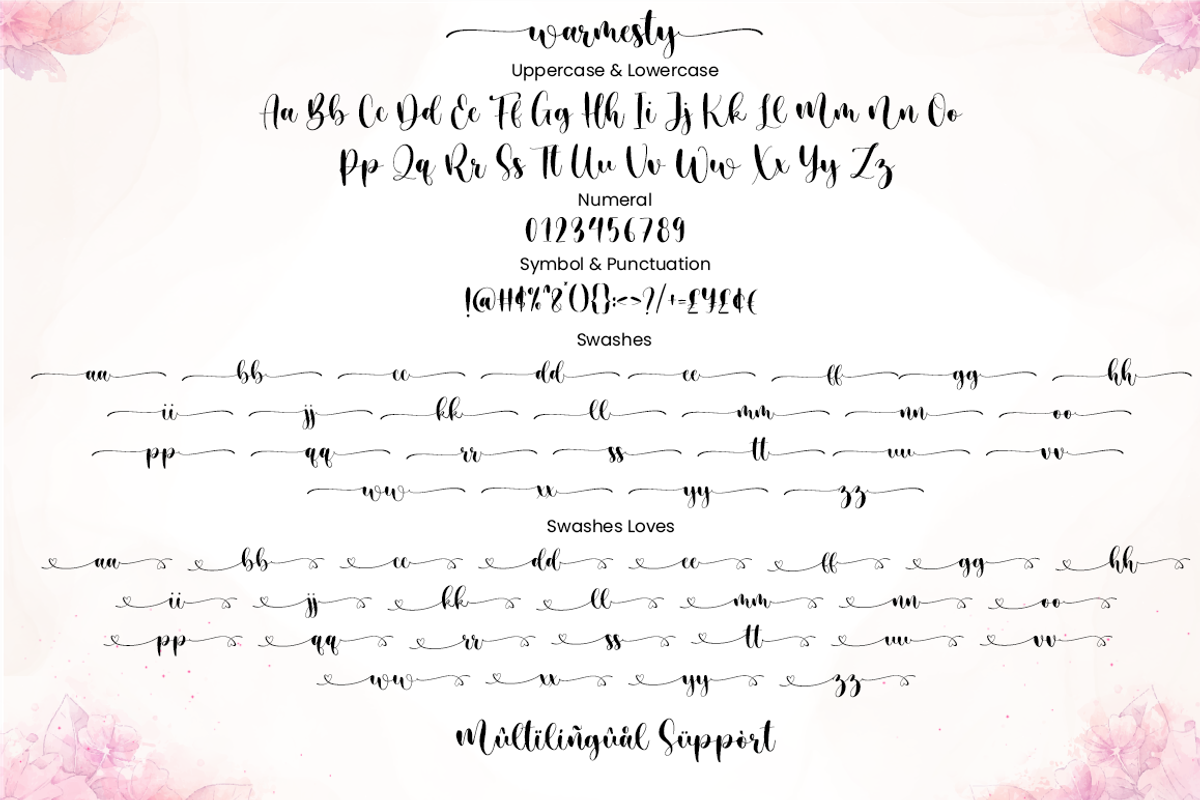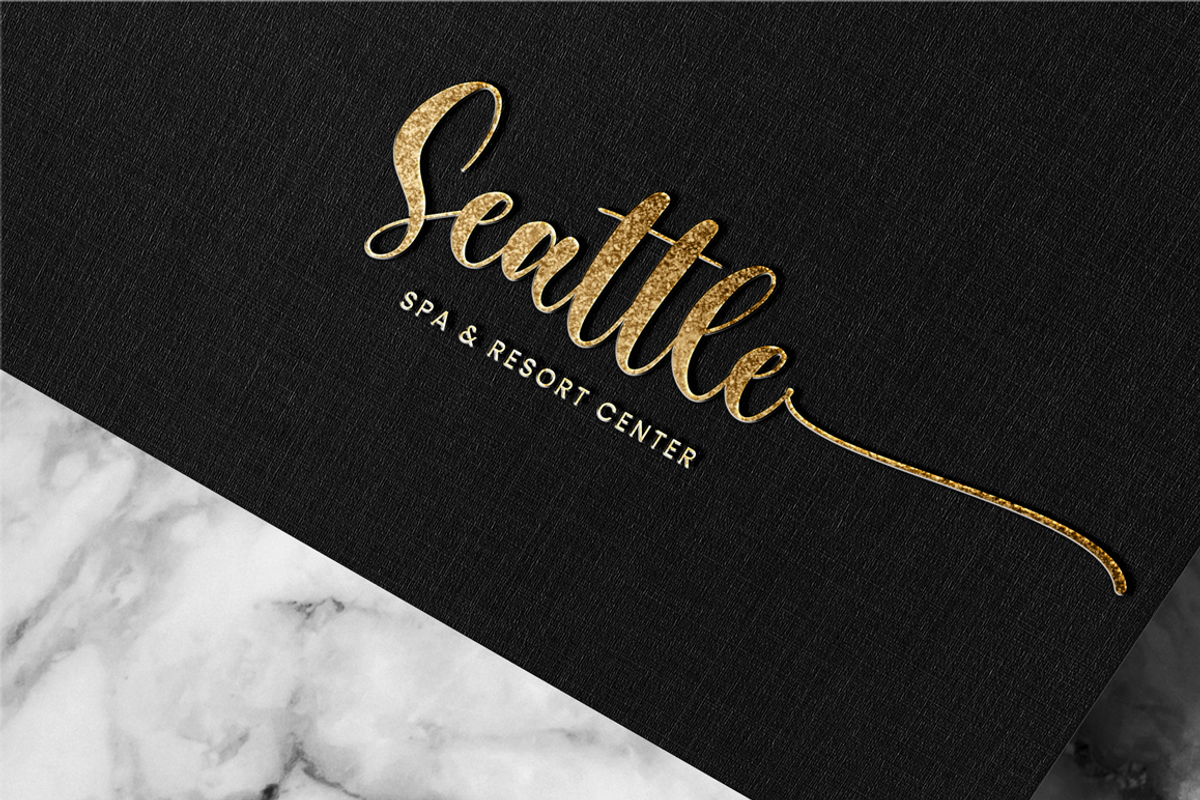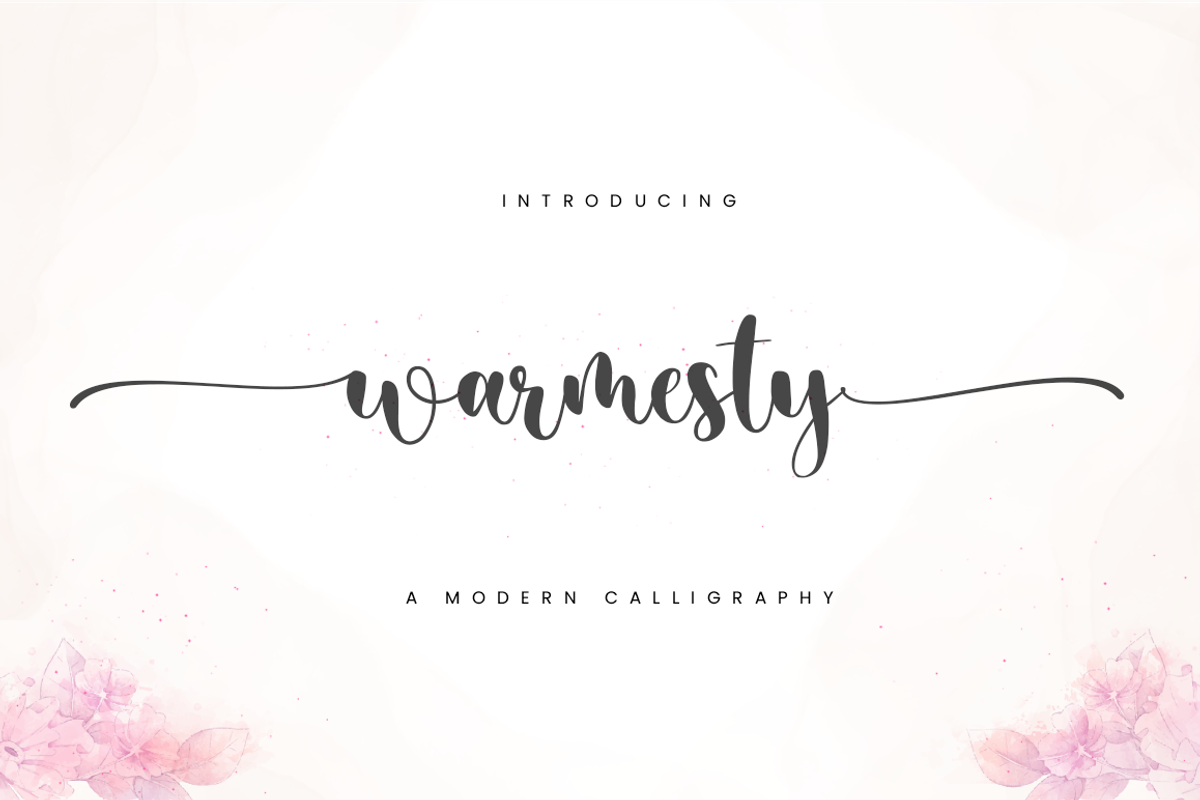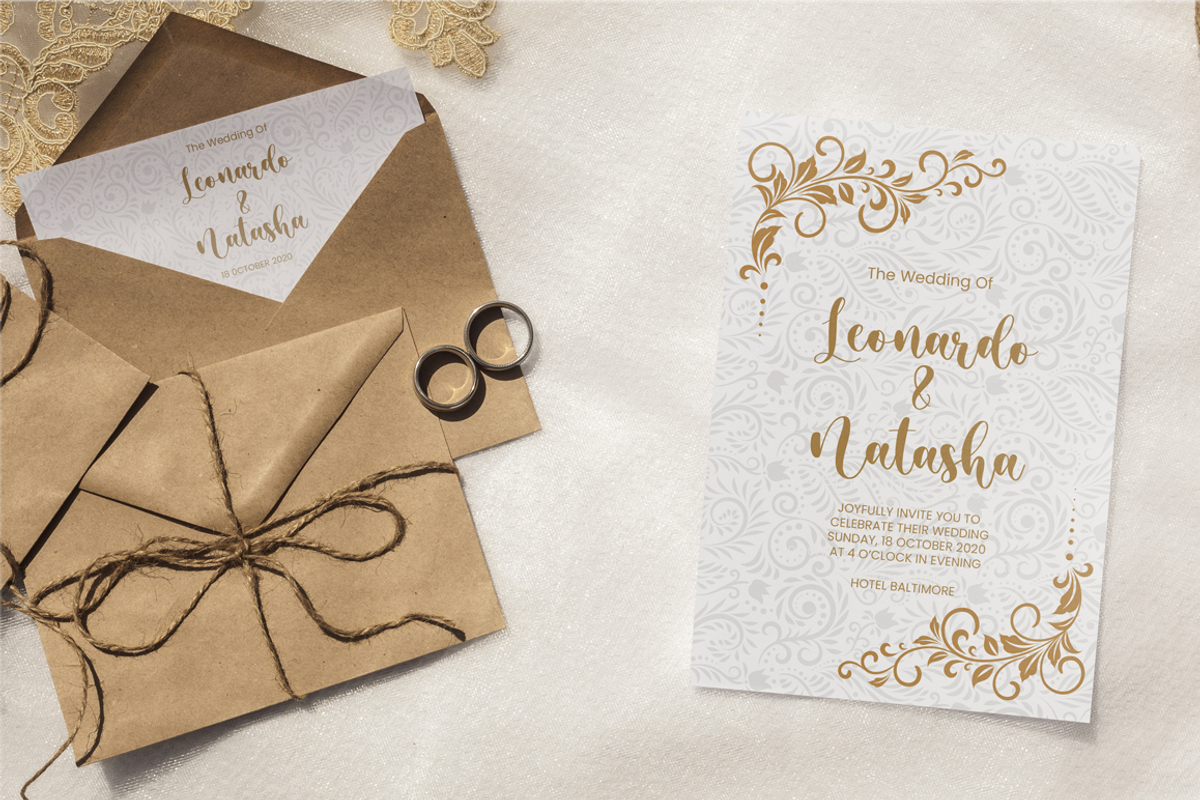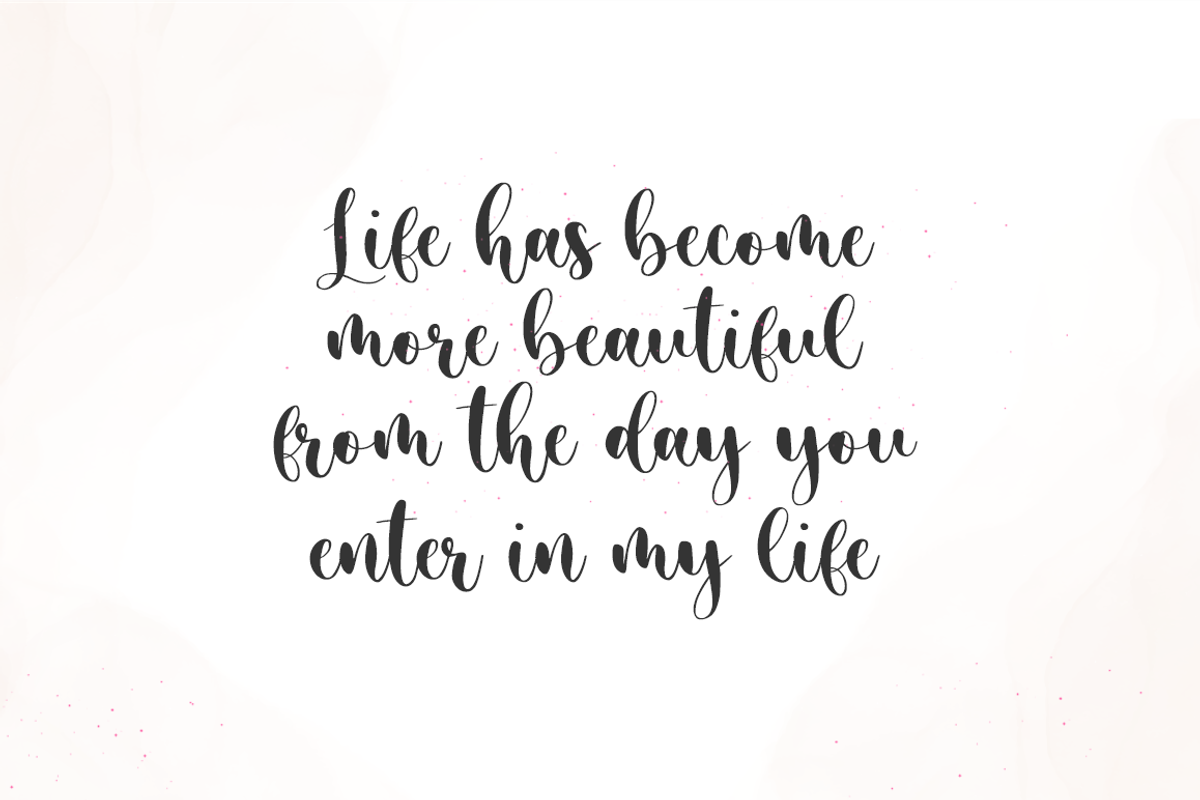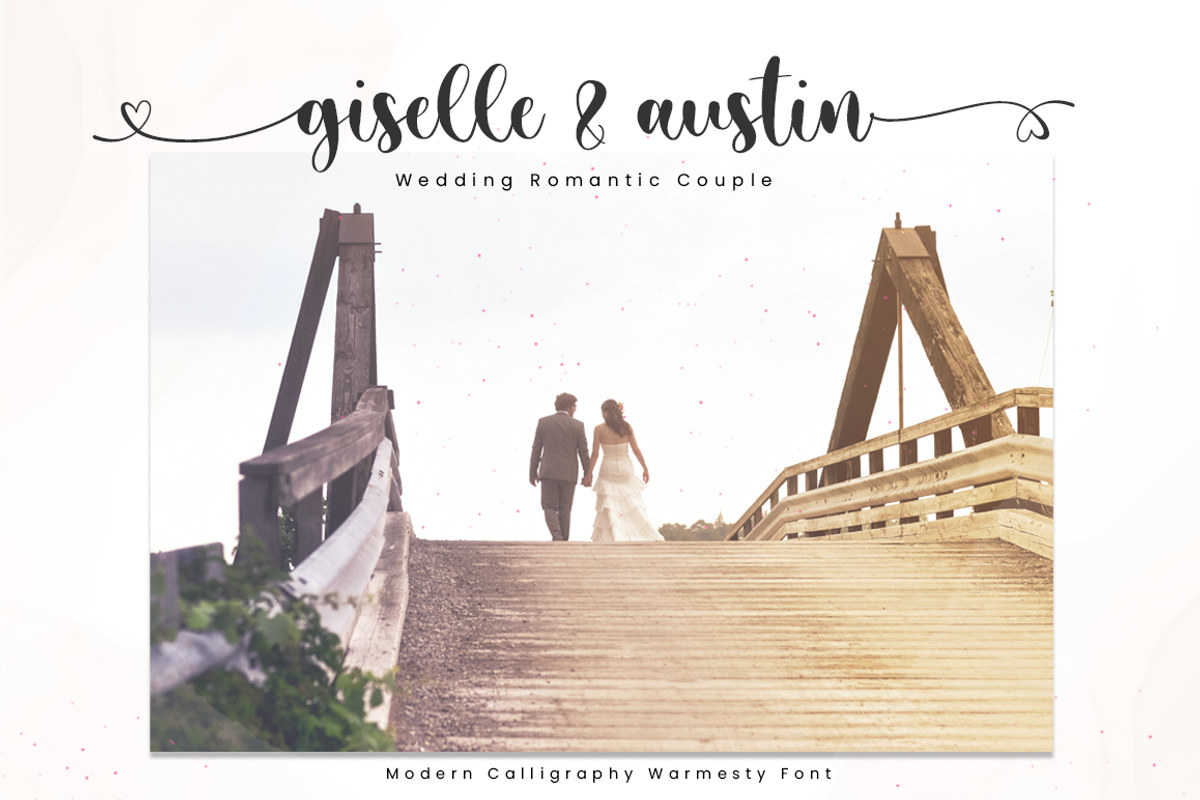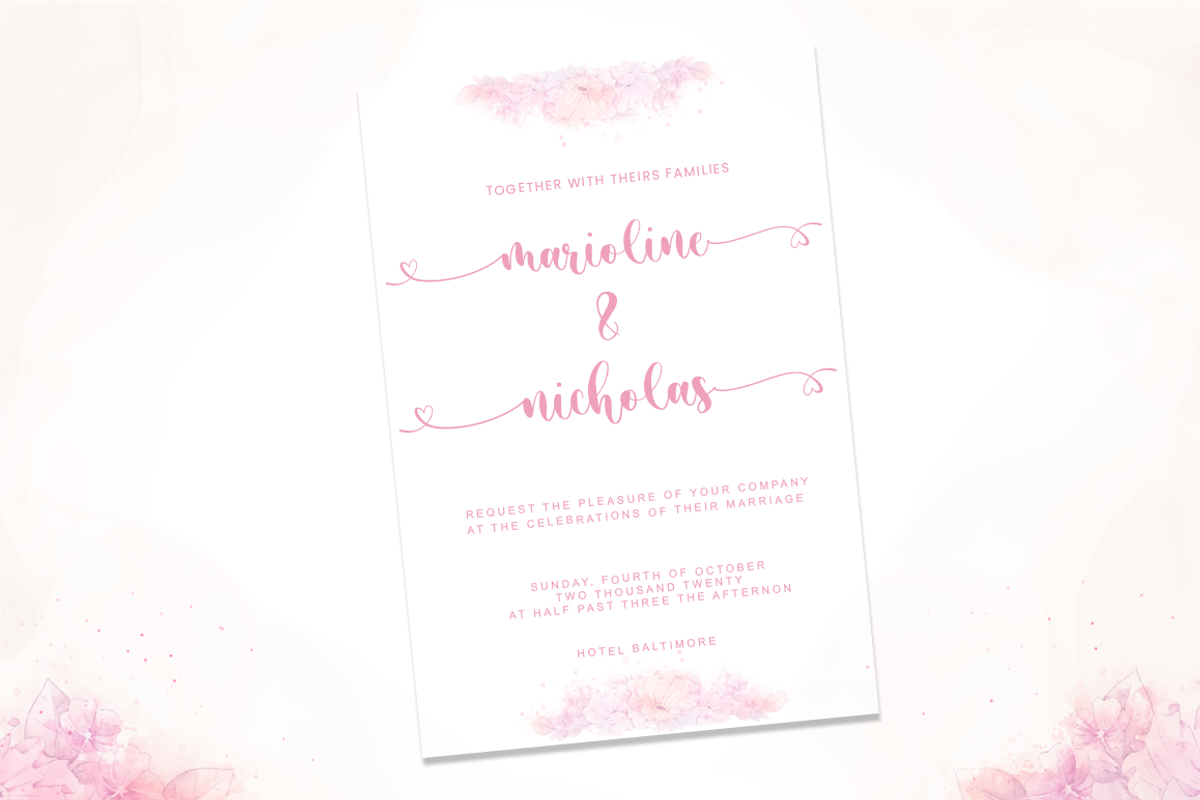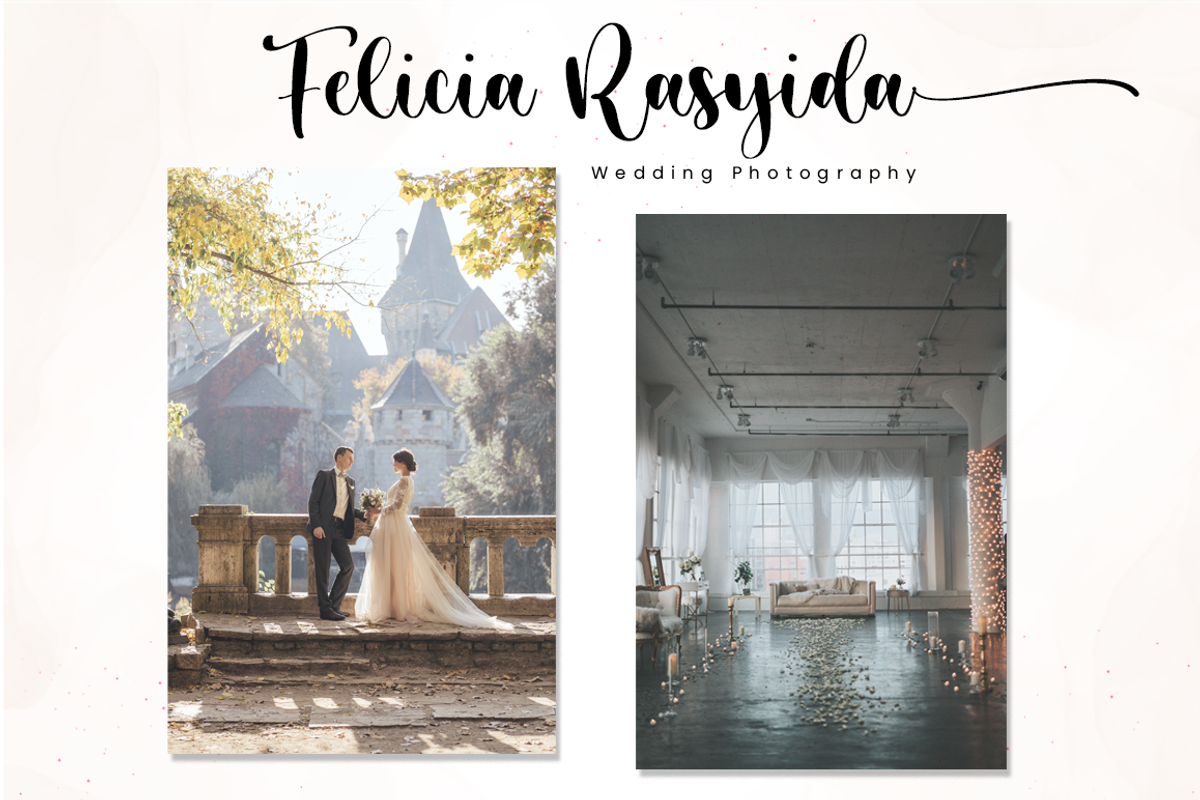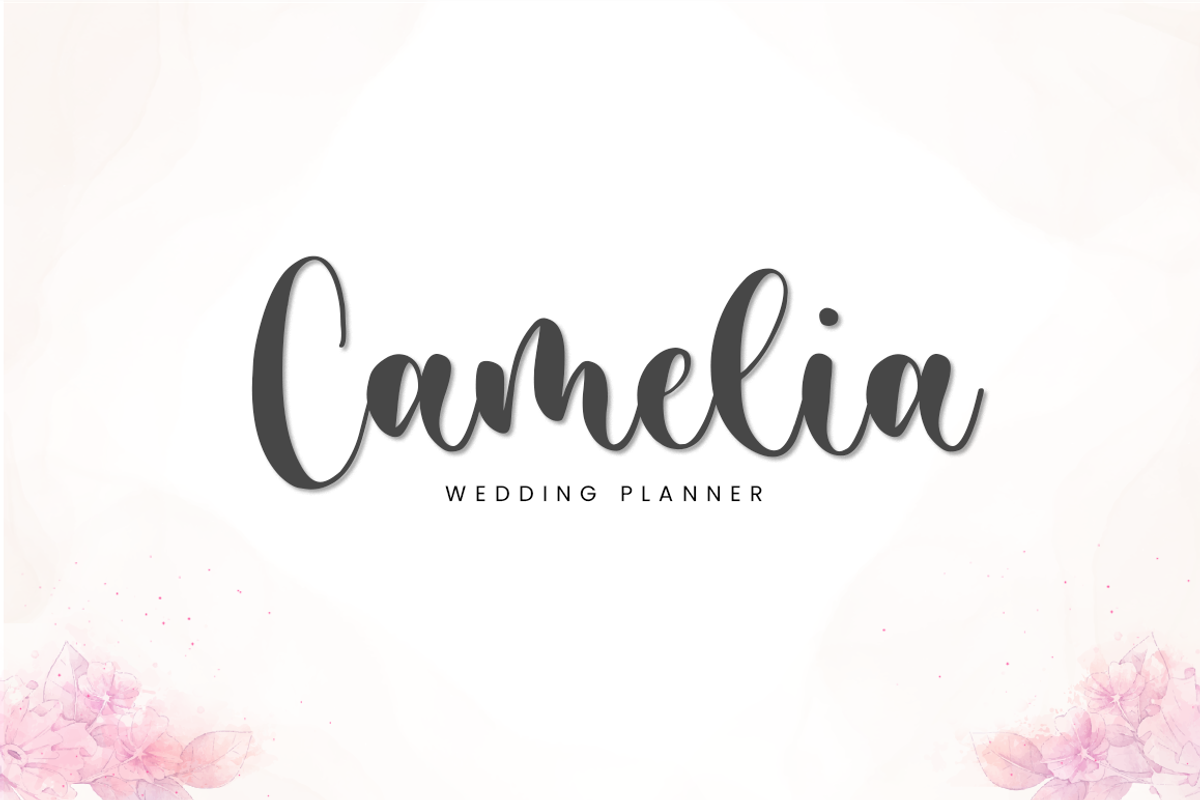
Warmesty - Lovely Font
Warmesty is a beautiful calligraphy font perfect for crafting, branding, invitation, stationery, wedding designs, social media posts, advertisements, product packaging, product designs, label, photography, watermark, special events or anything
Warmesty comes with full set of uppercase and lowercase letters, swash alternates, ligatures,multilingual symbols, numerals and punctuation.